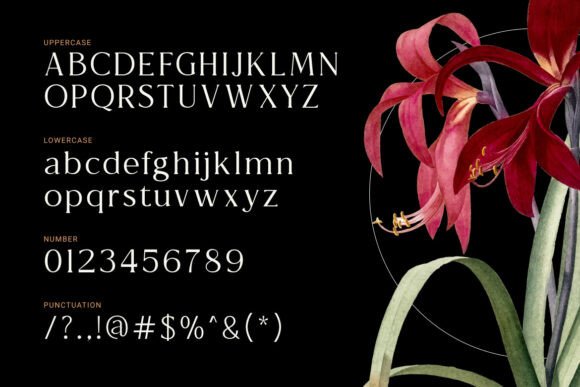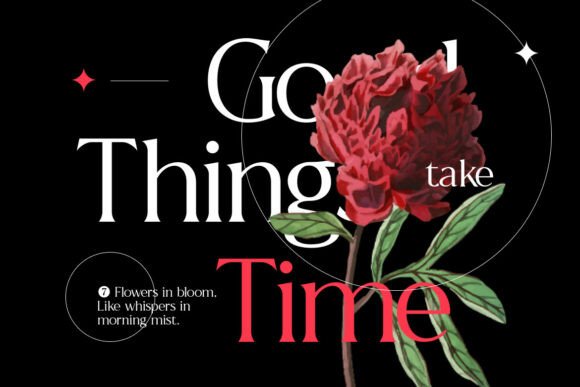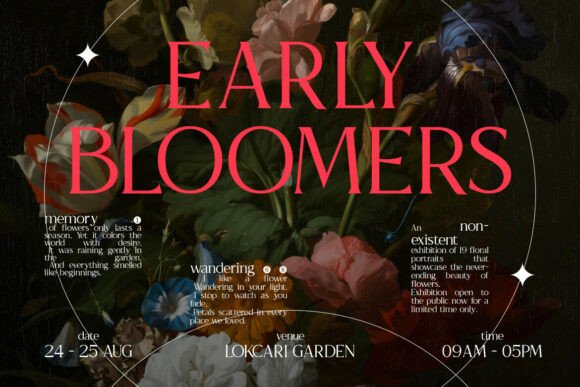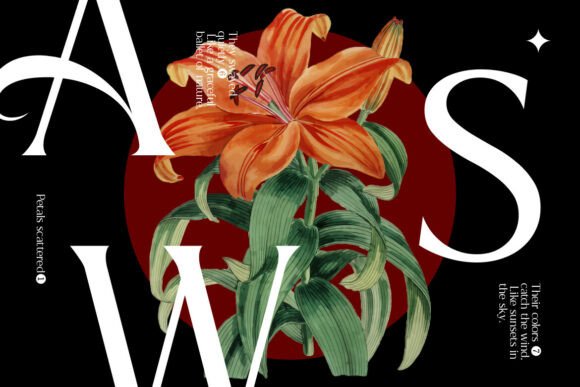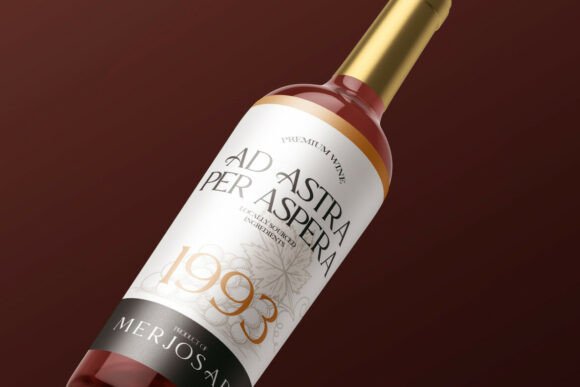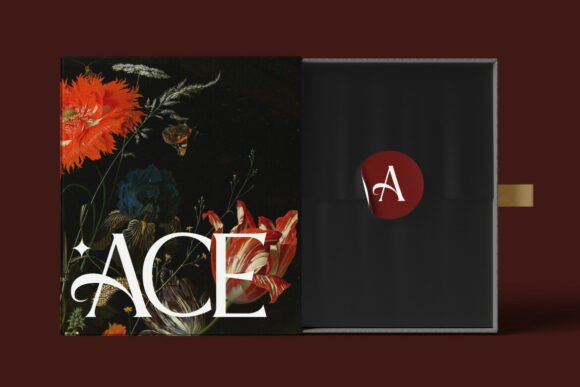
Astranala Font: Elevate Your Design with Timeless Elegance and Floral Flair
In the world of typography, few fonts manage to strike a balance between classic sophistication and modern artistic expression. Astranala Font is one such exceptional typeface that seamlessly blends elegance with a unique floral aesthetic. Designed to cater to the needs of designers and crafters looking for a refined and captivating typographic experience, Astranala is poised to elevate upscale branding, editorial layouts, packaging, and more.
The Essence of Astranala: A Modern Elegant Serif Font
Astranala is characterized by its graceful curves and high contrast strokes, a hallmark of elegant serif fonts. However, what sets it apart is its infusion with artistic floral elements, making it a standout choice for projects that demand a touch of sophistication and a dash of creativity. This modern elegant serif font is not just a typeface; it’s an expression of style and refinement.
Designed for Upscale Applications
Understanding the needs of designers and businesses aiming for the high end, Astranala has been meticulously crafted for upscale branding. Its sophisticated look makes it an ideal choice for luxury brands, high-end fashion labels, and lifestyle products that require a typography solution reflecting their premium status. Moreover, its elegance shines through in editorial layouts, adding a touch of class to magazines, newspapers, and digital publications.
Packaging and Beyond: Versatility at Its Best
The versatility of Astranala extends into packaging design, where its high contrast and elegant strokes can make product labels, boxes, and promotional materials stand out. Whether it’s a cosmetic product, a gourmet food item, or a luxury good, Astranala’s typography can enhance the visual appeal and convey a sense of premium quality. Its application isn’t limited to these areas; it can also breathe new life into wedding stationery, business cards, and any form of visual communication seeking a sophisticated edge.
Floral-Inspired Visuals and Fashion Forward
Astranala’s design resonates deeply with floral-inspired visuals, making it a perfect match for designers and brands who frequently incorporate botanical elements into their work. The subtle integration of floral aesthetics within its serifs and strokes adds a unique dimension to the font, setting it apart from more traditional typefaces. For fashion brands and lifestyle publications, Astranala offers a typographic solution that is both current and timeless, capable of conveying elegance, sophistication, and a keen sense of style.
Why Choose Astranala?
- Timeless Sophistication: Astranala brings a classic elegance to modern design, making it suitable for projects that require a touch of sophistication.
- Artistic Floral Aesthetics: Its unique blend of serif elegance and floral elements makes it stand out in the world of typography.
- Versatility: From upscale branding and editorial layouts to packaging and more, Astranala can elevate any project.
- Fashion and Lifestyle Focus: Ideal for designers and brands in the fashion and lifestyle sectors looking for a typography solution that speaks of elegance and style.
Astranala Font represents a significant addition to the typography world, offering a unique blend of elegance, sophistication, and artistic flair. Its design caters to the needs of modern designers and businesses looking to make a statement with their visual communications. Whether you’re working on a luxury brand project, an editorial layout, or a packaging design, Astranala provides the tools to create visually stunning and impactful works. Embrace the elegance and artistic beauty of Astranala to elevate your designs to new heights of sophistication and style.